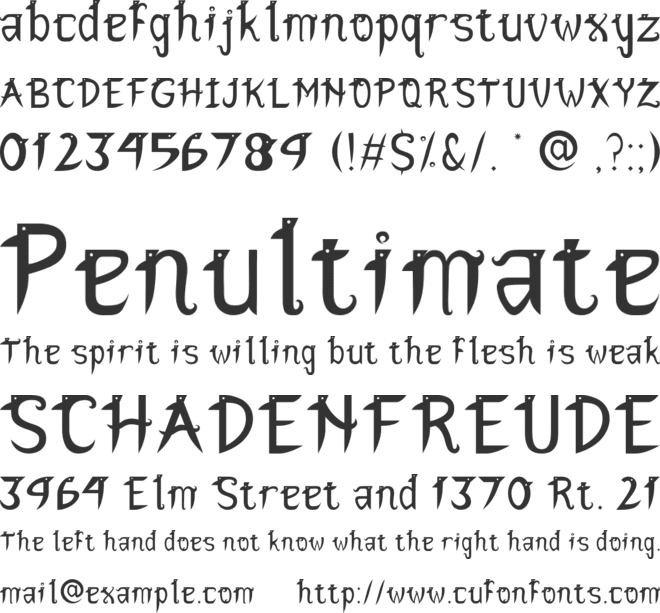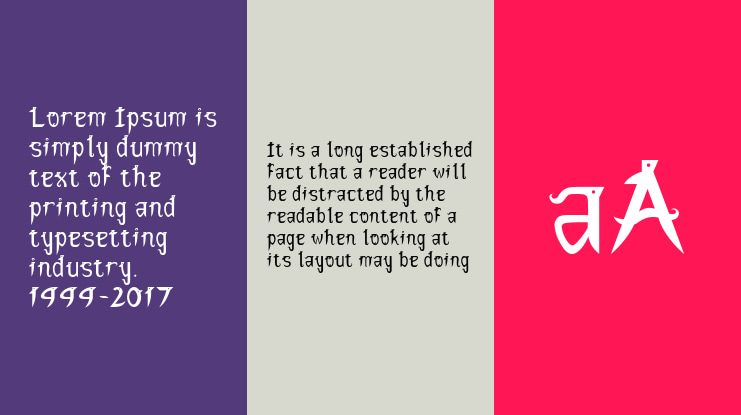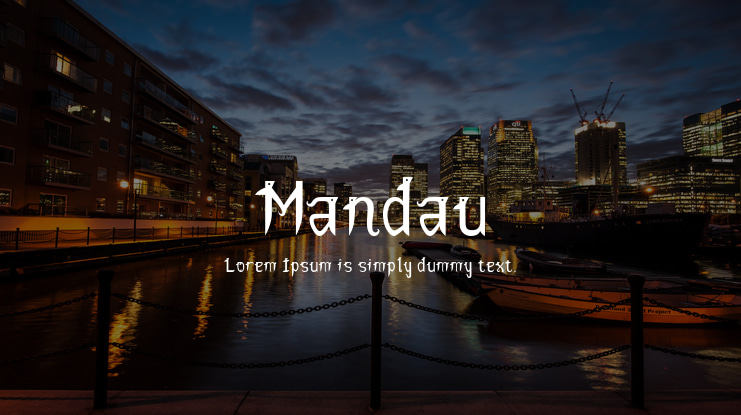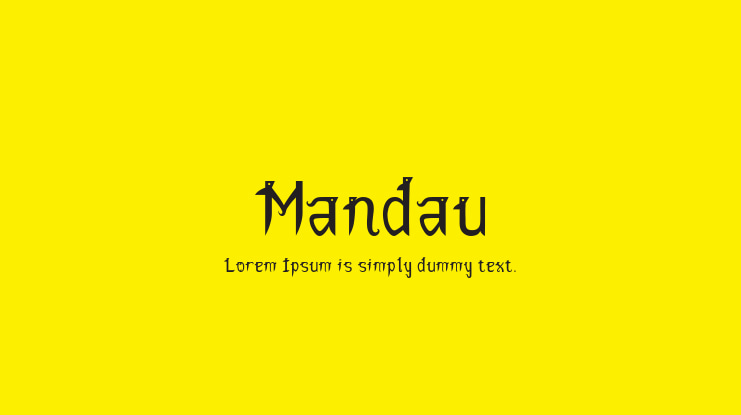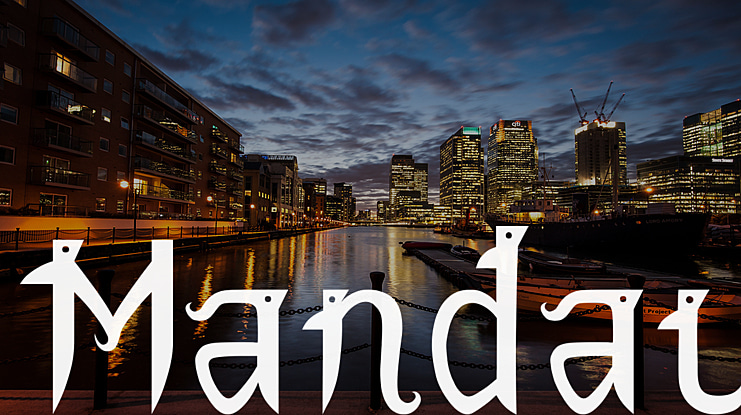
Mandau Font
This font is a font inspired by an traditional Indonesian weapon originating from the Dayak called Mandau. The shape of this letter is a simplification of the shape of the weapon. The shape is taken from the hilt of the Mandau which is shaped like Burung Enggang’s beak. The sharp part is the representation of blade and the shape of the circle is as a representation of the carvings in Mandau.